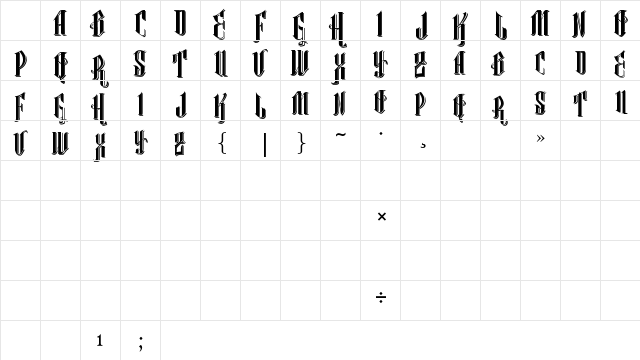
Vtks Classical Hit wears its vintage influences proudly, with letterforms that recall mid-century signage, classic packaging, and nostalgia-driven design.
Font Pairing: Combine Vtks Classical Hit with a simple slab or neutral sans - period-accurate companions reinforce the vintage feel without competing for attention.
Pro Tip: Lean into Vtks Classical Hit's period character by pairing it with aged paper textures, muted colour palettes, and vintage illustration styles.